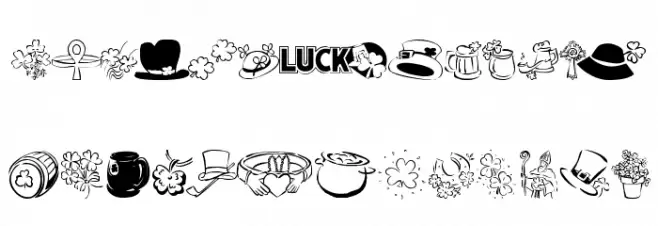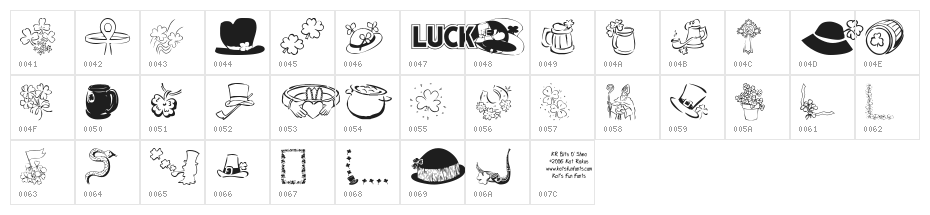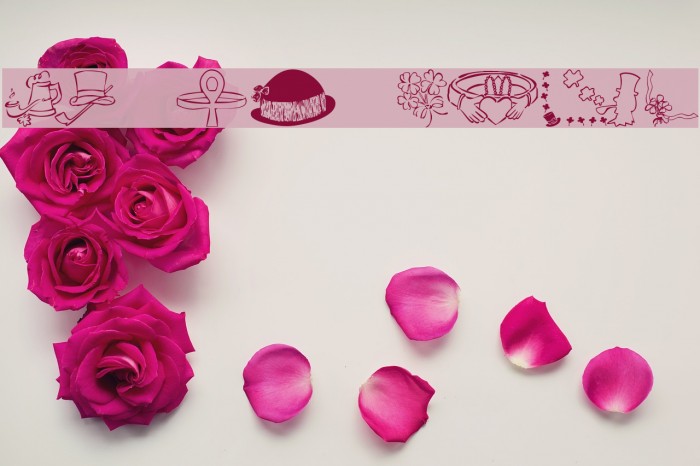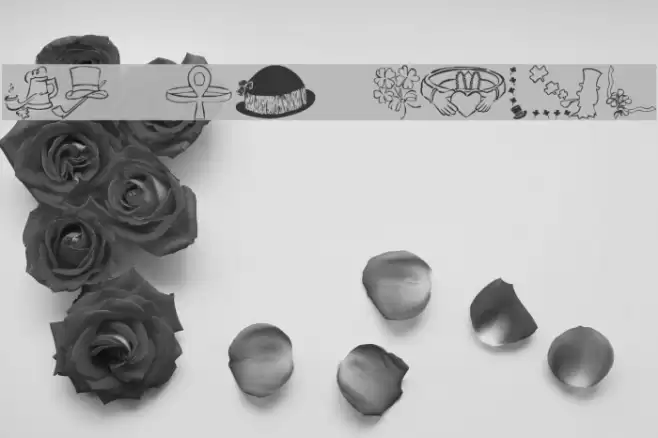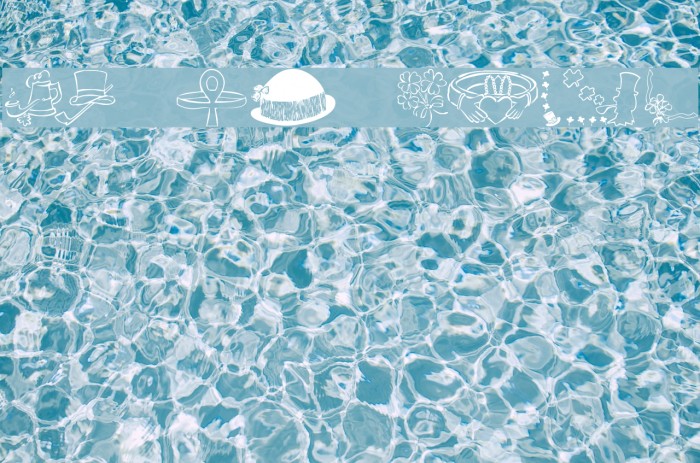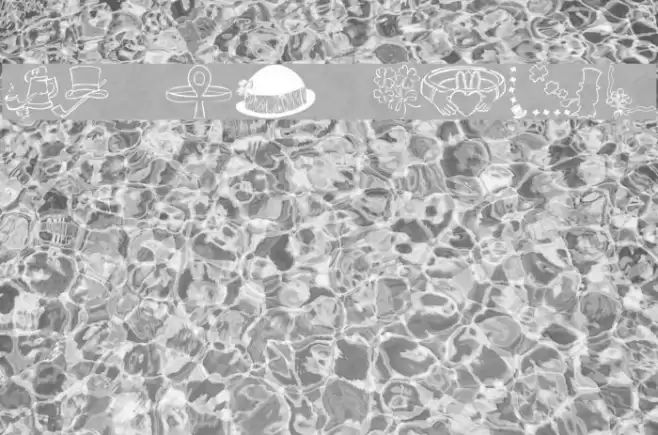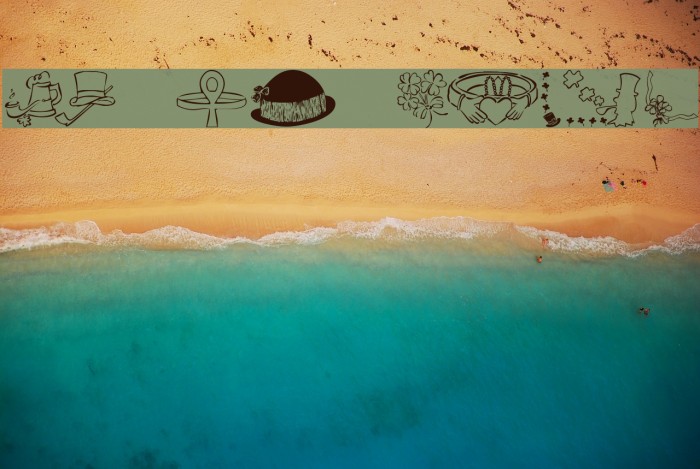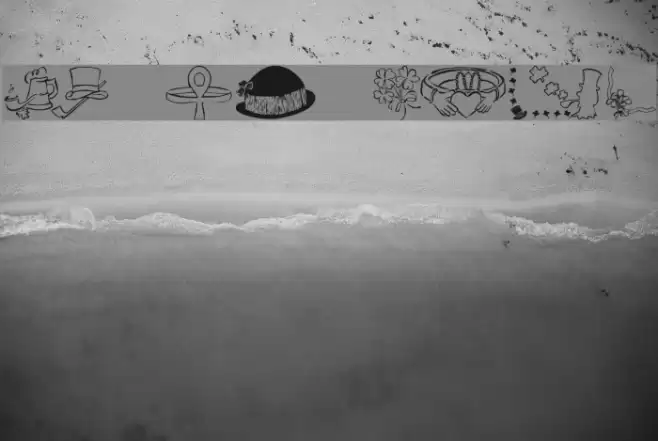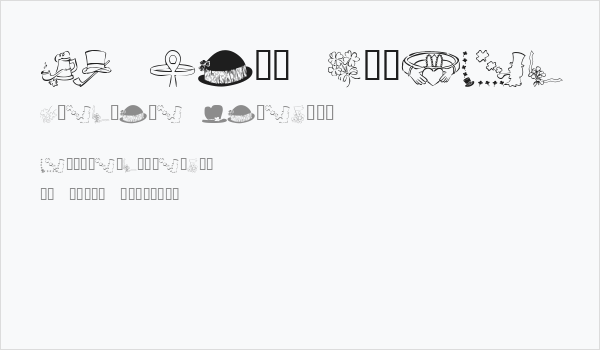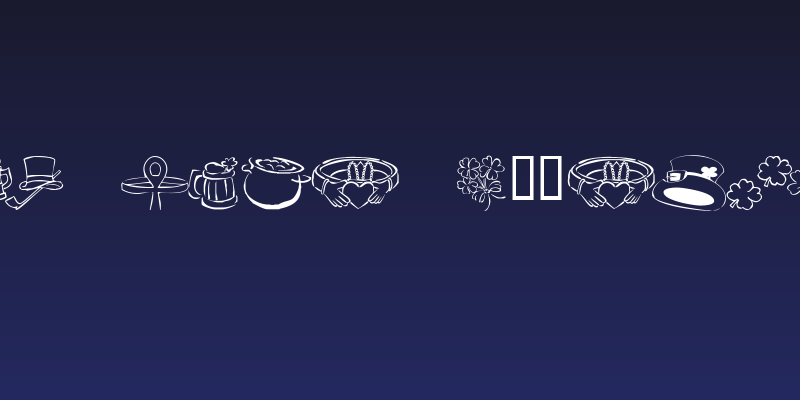
KR Bits O'Shea Font
KR Bits O'Shea Description
This is not a traditional font but rather a collection of decorative symbols and icons themed around luck and Irish culture. The design includes elements like shamrocks, hats, pots of gold, and other festive motifs. Each character is represented by a unique illustration, making it suitable for decorative purposes rather than textual communication. The style is playful and whimsical, with a focus on celebration and festivity.